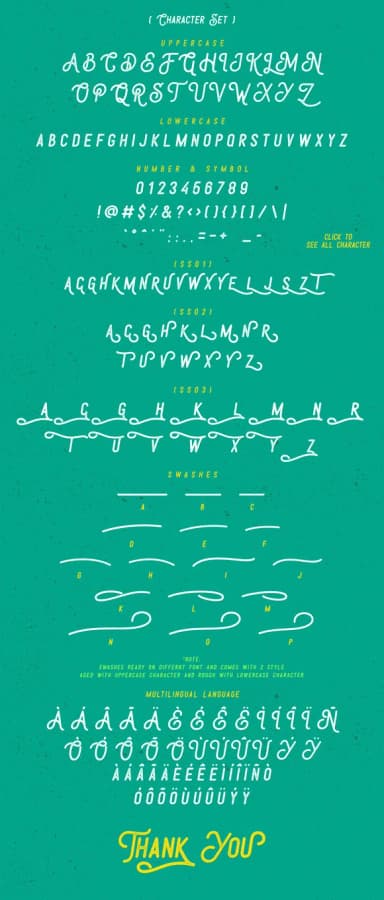
Sunday Quotes Font by Dikas Studio is a script typeface that merges hand-lettered warmth with contemporary elegance. The font's flowing letterforms and vintage sensibility make it particularly suited to projects where personality and authenticity take center stage. From wedding invitation suites and formal engagement announcements to boutique product packaging and artisan craft signage, this typeface brings distinctive character to every application. Its decorative swash alternates add visual richness without compromising readability, allowing designers to adjust the font's personality to perfectly match their project's specific aesthetic and creative direction while maintaining excellent legibility across various sizes.
The versatility of Sunday Quotes extends beautifully across both digital and print applications. Social media graphics benefit tremendously from the font's distinctive personality, while greeting cards, custom label designs, and specialty menu cards showcase its elegant proportions and graceful letterforms. Whether you're creating hand-crafted gift packaging, developing Etsy shop branding, designing marketing materials for lifestyle brands, or establishing a cohesive visual identity for a small independent business, this script font adapts seamlessly to display-heavy layouts, headline treatments, and longer passages of body copy. Creative professionals and small business owners will find that this font's versatility extends from digital social content to physical product applications, making it a valuable addition to any design toolkit. Get Sunday Quotes Font from Creative Fabrica and introduce sophisticated hand-lettered style to your next creative project.
- Elegant, Flowing, Sunday Quotes
Sunday Quotes Font is a script font that shines as a display or heading face. Pair it with a clean sans-serif or serif font for body text β the contrast creates a clear hierarchy while the two styles stay balanced and easy to read.
Sunday Quotes Font
by Dikas Studio